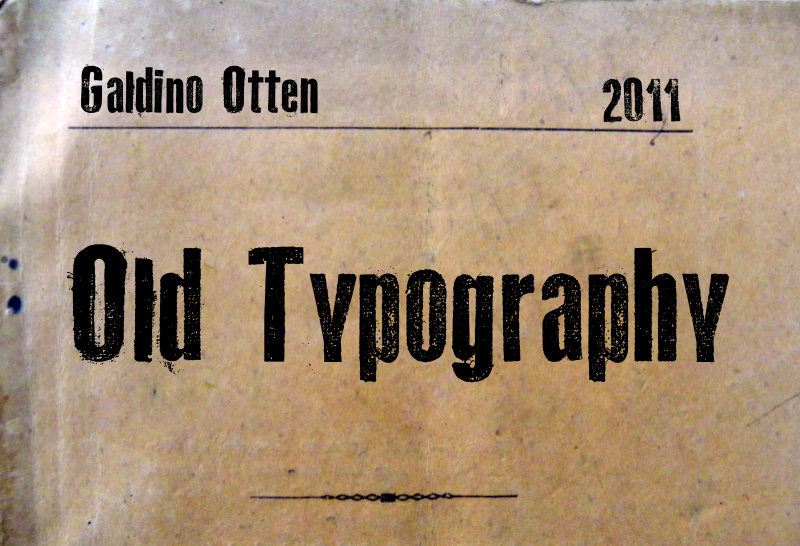
Old Typography by Galdino Otten is a free eroded display font with towering heavy letters and a rough letterpress finish. Its uneven wear and blunt shapes recall battered posters and hand-pulled show bills.
Independent music labels and vintage-minded clothing brands could use it for logos, packaging, and merchandise. The compact silhouette gives event posters and album covers force of street advertising. Flecks, gaps, and scraped edges can merge with photocopied portraits or collage textures as part of the artwork.